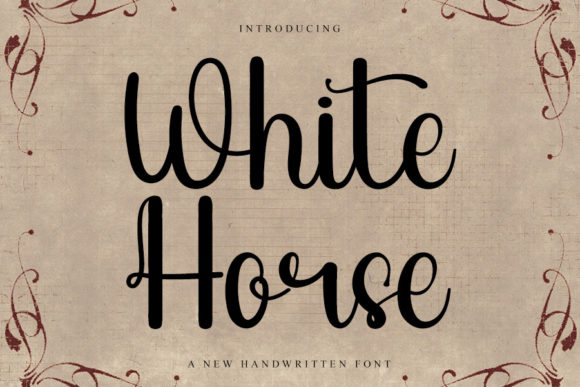
White Horse Font
Adorn your designs with the elegance and charm of White Horse Font, a captivating script font family that breathes life into your creative visions. Each letter, meticulously crafted, dances across the page with a playful spirit, adding a touch of whimsy and sophistication to your projects.
White Horse Font is not just a font; it's an artistic expression that speaks volumes. Its carefully designed curves and flourishes evoke a sense of joy and wonder, reminding you of childhood stories and enchanted forests. Whether you're a seasoned designer or just starting, White Horse Font will unleash your creativity and transform your designs into works of art.
With White Horse Font, you'll have the perfect font for eye-catching logos that demand attention. Its distinctive style will make your brand stand out from the crowd, leaving a lasting impression on your audience. Create stunning branding materials that reflect your unique personality and values, capturing the essence of your business in an unforgettable way.
The versatility of White Horse Font extends beyond logos and branding. It's the perfect choice for adding a touch of magic to your quotes and social media posts. Its charming handwritten style will make your words come alive, captivating your audience and leaving them wanting more.
White Horse Font is the gateway to a world of endless creative possibilities. Its small display size makes it perfect for adding a personal touch to wedding invitations, birthday cards, and other special occasions. Let your creativity soar as you design enchanting posters, flyers, and brochures that will leave a lasting impression.
Inermedia STUDIO, the creative minds behind White Horse Font, have poured their hearts and souls into every letter, ensuring that each one tells a story. Their passion for typography shines through in the intricate details and harmonious flow of the font. With White Horse Font, you'll have a font that not only enhances your designs but also reflects your own unique style and personality.